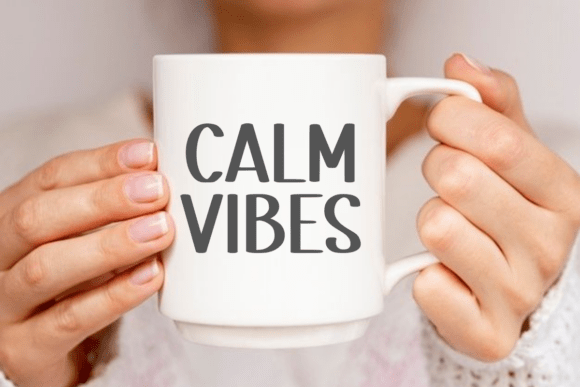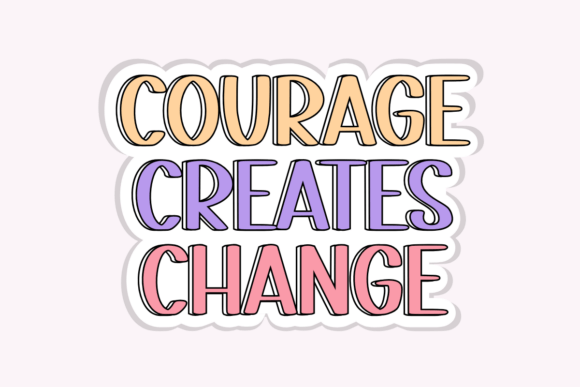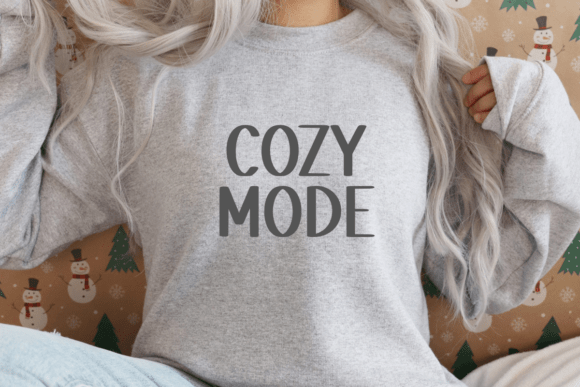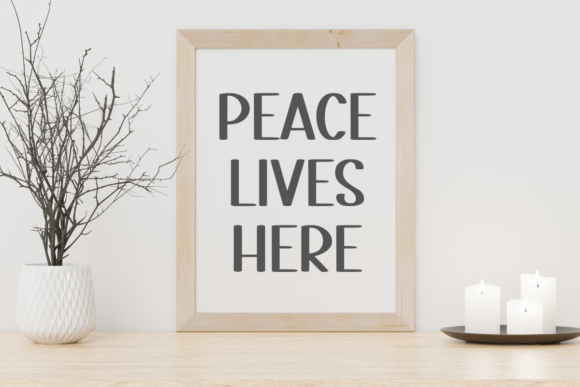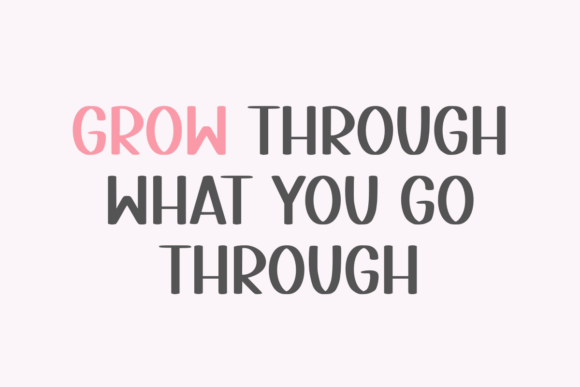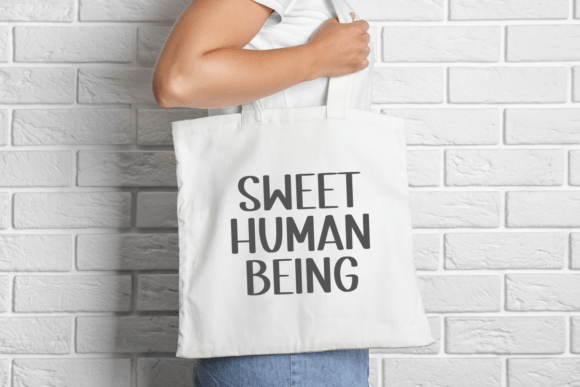
The Dream Collection Font: A Crafter’s Best Friend
I’ll never forget the moment I stumbled upon the Dream Collection font. I was working on a custom party invitation for my niece’s birthday, and I was determined to make it perfect. I had a clear vision of a soft, friendly, and playful design, but I was struggling to find the right font to bring it all together. That’s when I discovered Dream Collection, and it was love at first sight! 💕
This adorable sans serif handwriting font has a warm, handcrafted feel that instantly elevated my design. The simple strokes and smooth curves make it easy to read and work with, and I knew right then that it was going to become a staple in my design toolkit.
So, what makes Dream Collection so special? Here are a few things that I absolutely love about this font:
- ✨ Soft and friendly aesthetic that’s perfect for kids’ projects, planners, and stickers
- ✅ Easy to read and work with, even for beginners
- 🤩 Perfect for crafting moms and creative hobbyists who love handwritten styles
Of course, no font is perfect, and Dream Collection has a few small quirks to keep in mind:
- ⚠️ Some users may find the font a bit too casual for formal projects
- 🤔 Limited availability of certain OpenType features and glyphs
The Story Behind Dream Collection
While I couldn’t find any information on the exact design process behind Dream Collection, I like to imagine that it was created by a team of designers who are passionate about crafting and handmade designs. Perhaps they were inspired by the soft, friendly aesthetic of children’s books and toys, and wanted to create a font that would bring a similar sense of wonder and playfulness to creative projects.
| Font Name | Dream Collection Font |
| Author | Nuhatype |
| What type of projects is Dream Collection best suited for? | Dream Collection is perfect for craft projects, planners, stickers, kids’ worksheets, classroom printables, and DIY designs. |